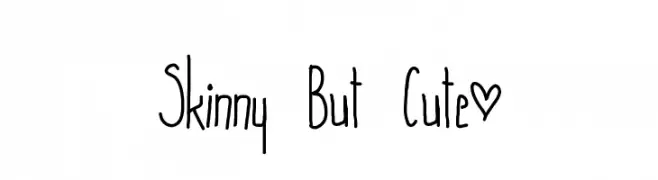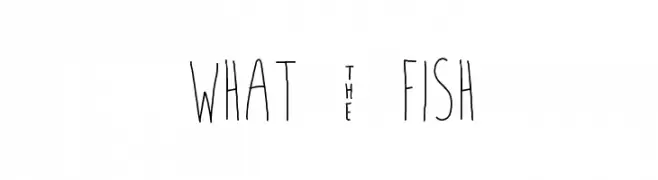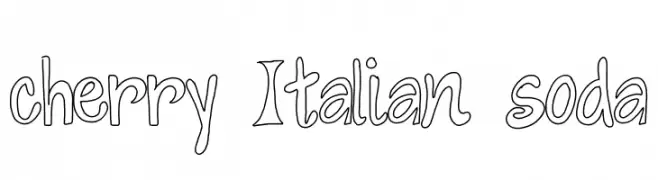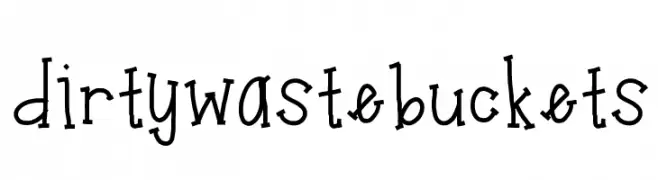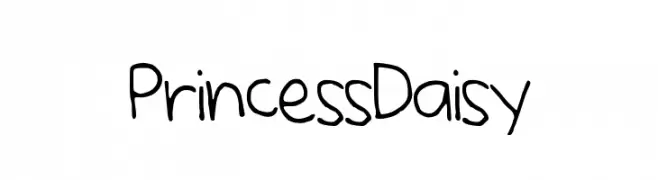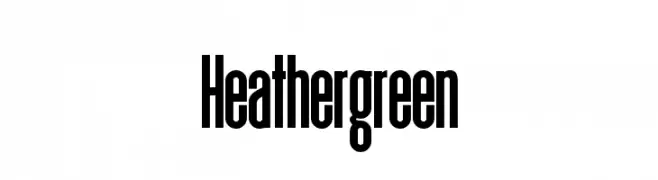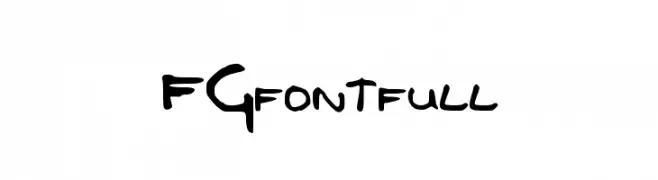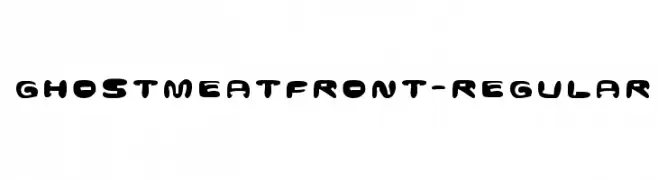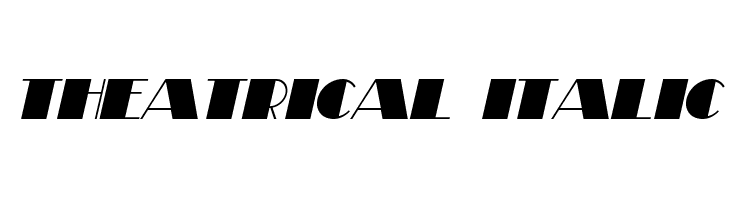
( Reema Chhabra - www.facebook.com/artistic.reema )
A playful, hand-drawn font with tall, narrow characters and a whimsical style.
( Reema Chhabra - www.facebook.com/artistic.reema )
A playful, handwritten font with tall, narrow letters and a whimsical style.
( Sabrina Schleiger - www.sabrinaschleiger.com )
A playful, hand-drawn font with outlined characters and a whimsical style.
( Sabrina Schleiger - www.sabrinaschleiger.com )
A playful, hand-drawn font with uneven strokes and a whimsical style.
( Sam Kasten - thelifeandtimesofaflexitarian.tumblr.com/ )
A playful, handwritten font with a casual and friendly style.
( Sharkshock - Dennis Ludlow - www.sharkshock.net )
A bold, elongated font with a strong vertical emphasis and modern style.
( Stefanie de Kock )
A bold, playful handwritten font with dynamic strokes and a lively appearance.
( Typodermic Fonts - Ray Larabie - www.typodermicfonts.com/ )
A playful, bold font with rounded edges and a whimsical design.
( Vladimir Nikolic - www.coroflot.com/vladimirnikolic )
A bold, italicized font with dramatic flair and high contrast, perfect for impactful headlines.
( Vladimir Nikolic - www.coroflot.com/vladimirnikolic )
A bold, geometric font with a shadow effect for a dramatic, modern look.